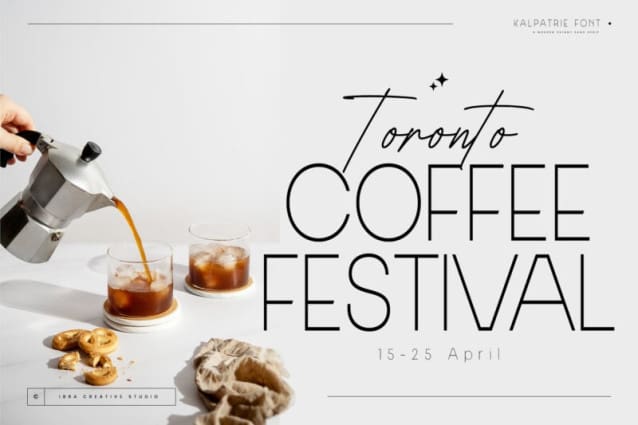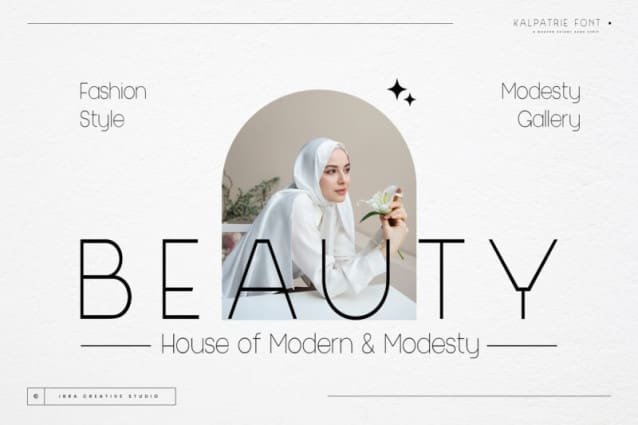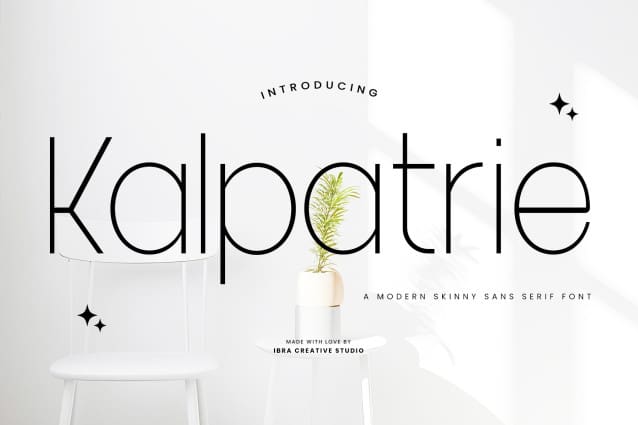
Kalpatrie Font
Kalpatrie Font, a modern and sleek sans-serif font, epitomizes contemporary design with its clean lines and minimalist aesthetic. The typeface’s slender and sophisticated letterforms convey a sense of elegance and versatility, making it an ideal choice for a wide range of design applications. The uniform stroke widths and well-balanced proportions of Kalpatrie create a harmonious and polished look, ensuring readability while exuding a sense of modernity. Whether used for branding, editorial design, or digital interfaces, Kalpatrie brings a touch of refinement to any project, making it a go-to choice for those seeking a font that seamlessly blends sophistication with a contemporary edge.